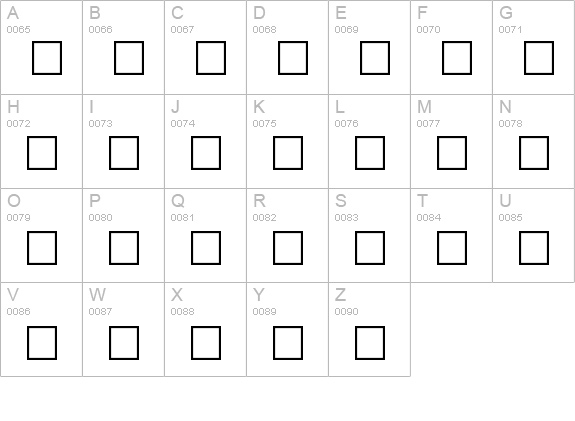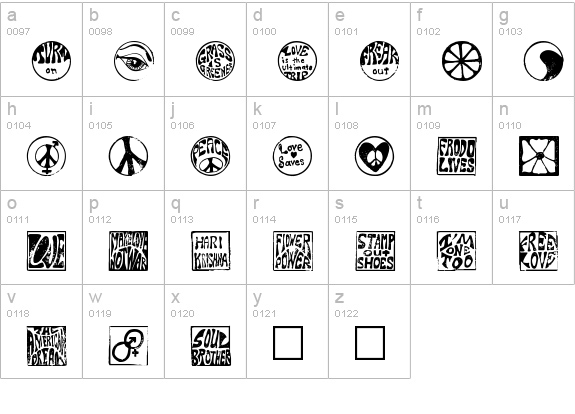
HippyStampA font is a whimsical and charming typeface that exudes a carefree and bohemian vibe. Its unique hand-drawn style gives off a playful and relaxed feel, making it perfect for projects that require a touch of individuality and creativity. With its uneven lines and quirky details, HippyStampA font adds a fun and quirky element to any design. The best part? HippyStampA font is completely free to download at FontsMarket.com! Embrace your inner free spirit and add a touch of hippie charm to your projects with this delightful and unique font. Whether you're working on posters, invitations, or social media graphics, HippyStampA font is sure to make a statement and stand out from the crowd. Download it today and let your creativity run wild!